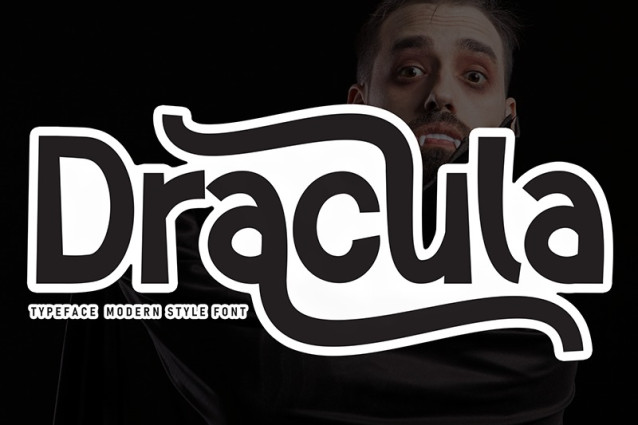
Dracula Playful Font
Dracula Playful Font is a chunky, comic, and cartoon display font. With its neat and joyful personality, this font will enhance any project you wish to create!